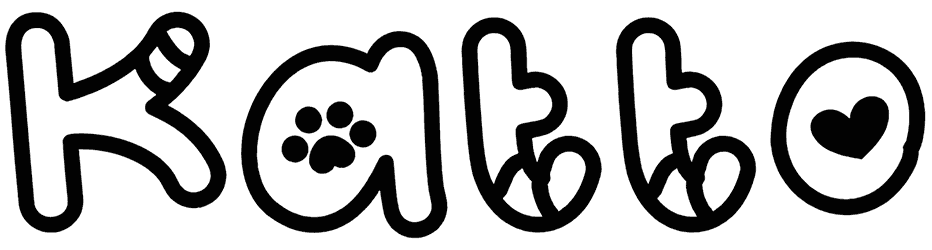
Katto Font
The Katto is a cat font with an animal theme, as some letters are designed with the shape of a cat and dog. This cartoonish font has a fun childish feeling and may be a good choice for cartoons, animations, posters, and book covers.
The Katto’s letters are soft-edged and have a rounded shape; thus, they send a friendly vibe and are entertaining for the viewers, especially the children who remain in their minds for a lasting time.